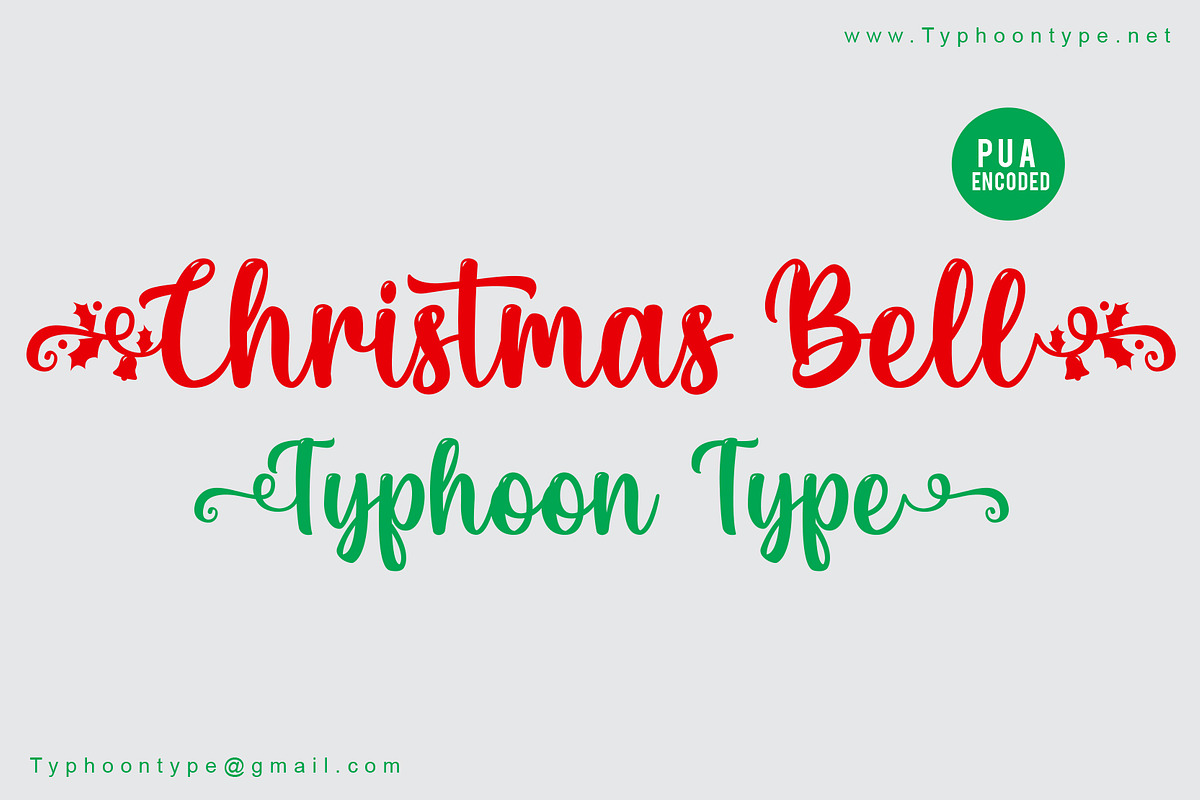
Christmas Bell font
Christmas Bell This Font perfect for logos, name tag, advertising, product packaging, clothing, social media & greeting cards.
- Type ( before word to get beginning Christmas swashes and Type ) after word to get the ending Christmas swashes.
- Type (less sign) before word to get beginning standard swashes and Type (greater sign) after word to get the ending Standard swashes.
Example : (Christmas Bell) or Christmas Bell